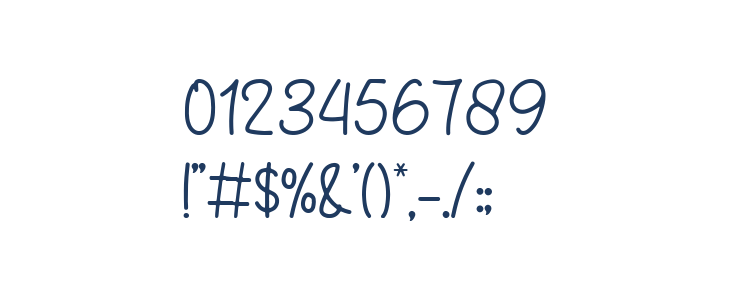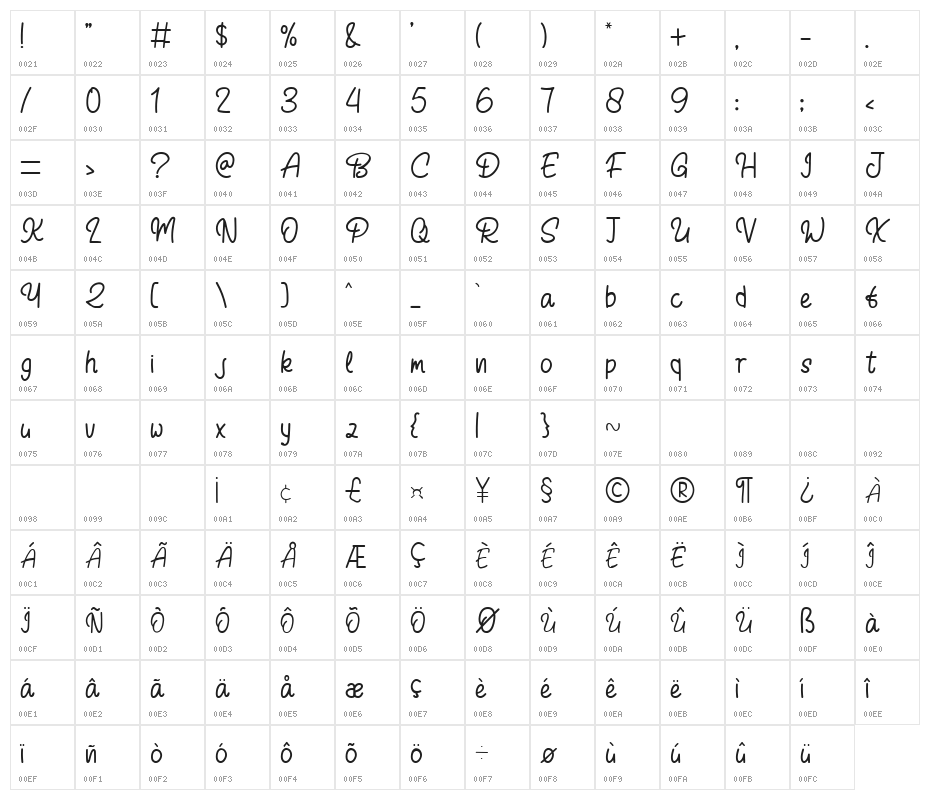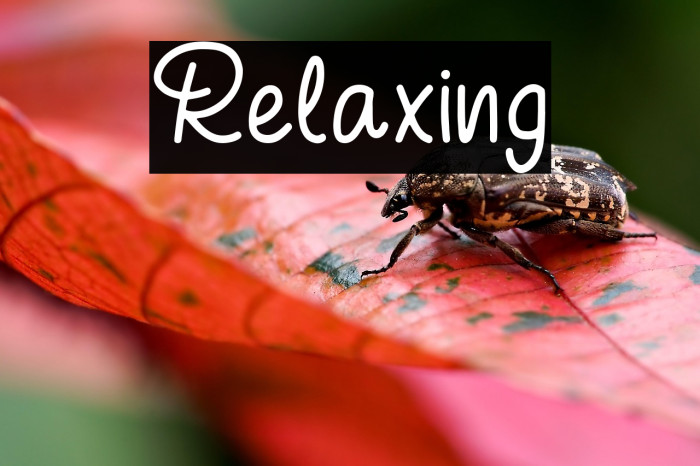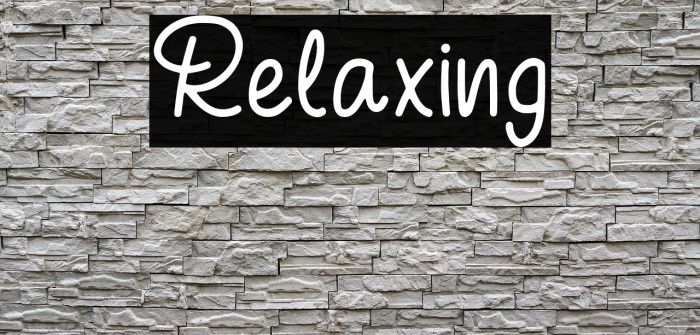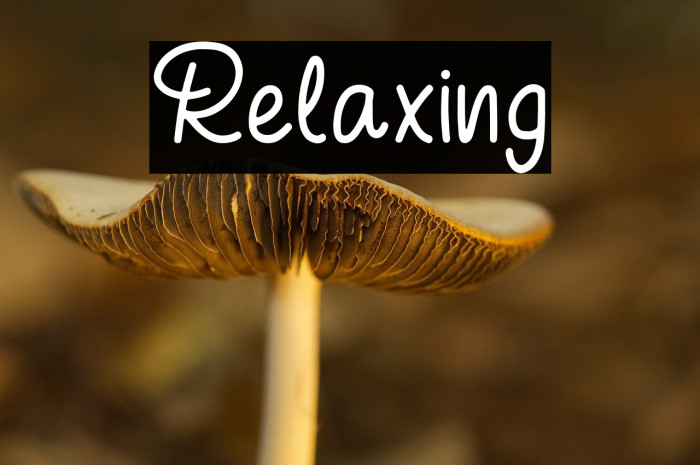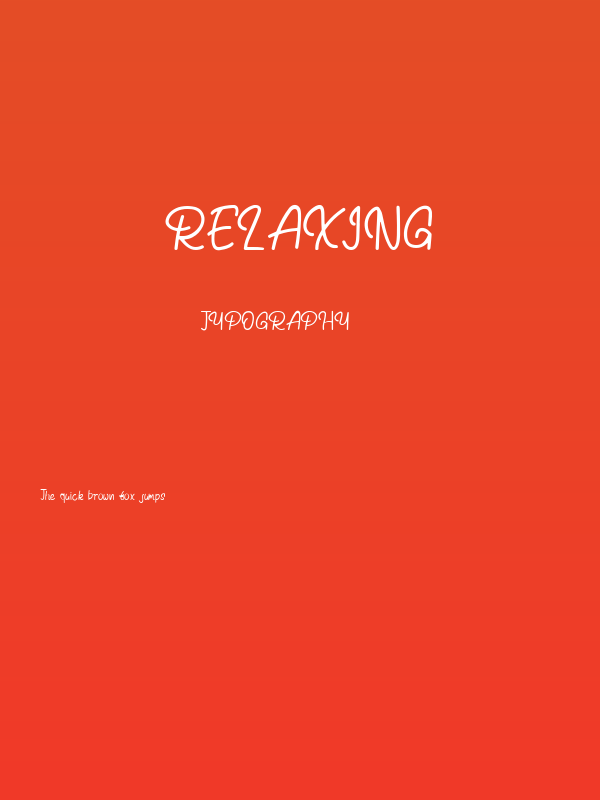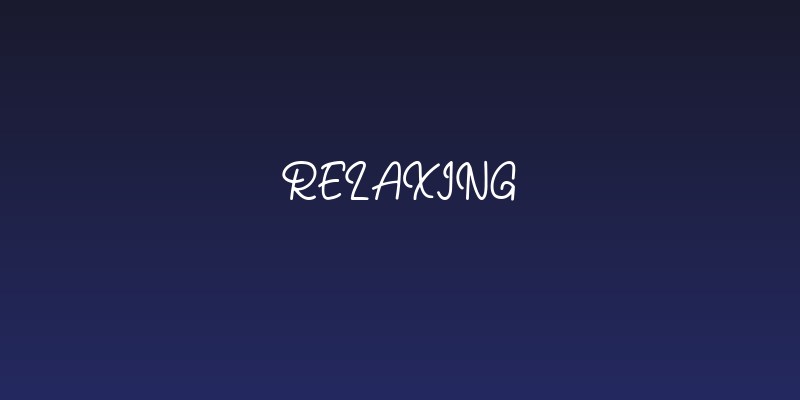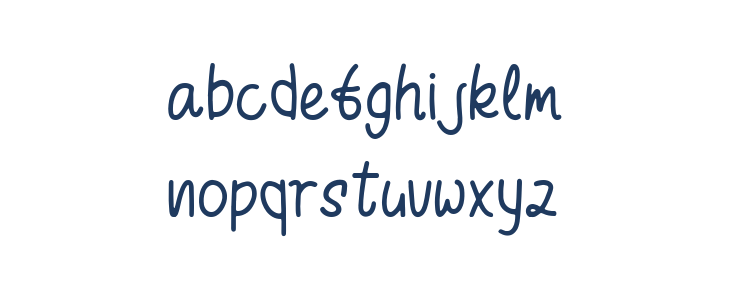
Relaxing Font
Relaxing Description
This font features a playful and informal handwritten style, characterized by its smooth, flowing curves and slightly irregular letterforms. The uppercase letters are bold and prominent, while the lowercase letters maintain a consistent, casual appearance. The numerals are rounded and easy to read, complementing the overall relaxed aesthetic. Special characters are integrated seamlessly, maintaining the font's cohesive look. This font exudes a friendly and approachable vibe, making it ideal for projects that require a personal touch.
| Use Case | Logos, Invitations, Social Media Graphics |
| Proposed Projects | Ideal for greeting cards, invitations, personal branding, and casual social media graphics. |